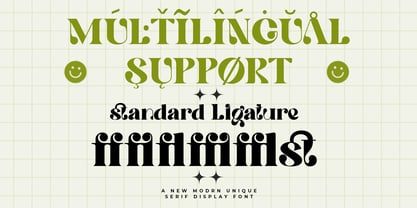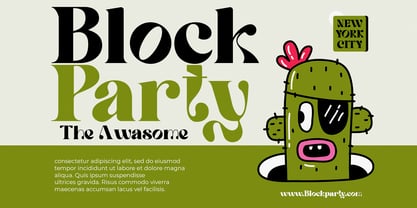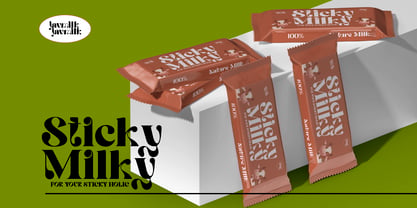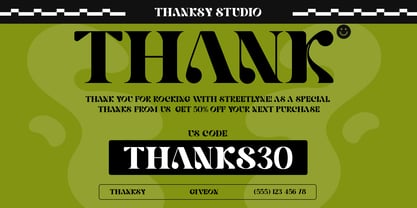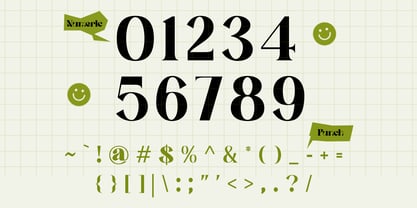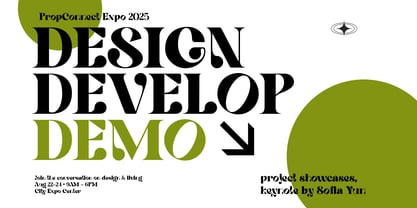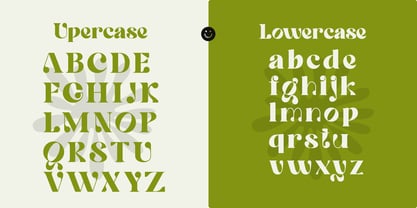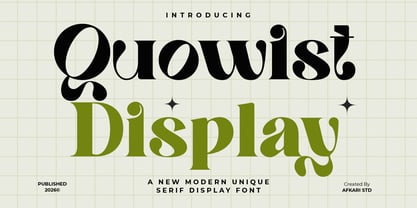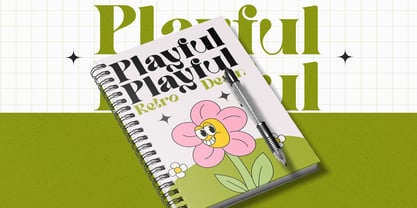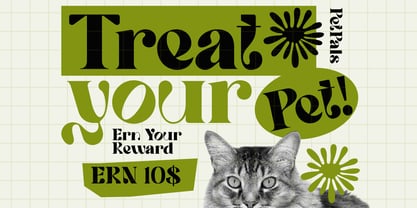
Quowist Display
by Afkari Studio
The Quowist Display Font Family was designed by Musthafa Kamal Emje and published by Afkari Studio. Quowist Display contains 1 styles. More about this family
Quowist Display is a modern unique serif display font designed to create strong visual impact with refined elegance. Featuring high-contrast strokes, sharp serif details, and contemporary proportions, this serif typeface brings a luxurious and artistic feel to any design. It is carefully crafted to help designers build premium branding and sophisticated typography compositions. This modern serif display font is perfect for luxury logo design, fashion branding, editorial headlines, magazine covers, wedding invitations, cosmetic packaging, boutique labels, and high-end marketing materials. The distinctive serif structure makes Quowist Display ideal for large titles and statement typography where personality and elegance matter most. With uppercase and lowercase letters, numbers, punctuation, and multilingual support, Quowist Display offers flexibility for international branding projects. The balance between classic serif tradition and modern styling makes it suitable for both minimalist and expressive design concepts. Highlighted Features: - Uppercase, Lowercase, Number, and Punctuation - Special alternates - Modern serif display font - Elegant and high-contrast letterforms - Works on PC & Mac - Simple installations - Accessible in Adobe Illustrator, Adobe Photoshop, Adobe InDesign, and even work on Microsoft Word - Fully accessible without additional design software. - Mültîlíñgúãl Sùppört for; ä ö ü Ä Ö Ü ß ¿ ¡ If you are looking for a modern serif display font that combines luxury aesthetics with a unique personality, Quowist Display is ready to elevate your creative projects and marketplace listings with strong visual appeal.